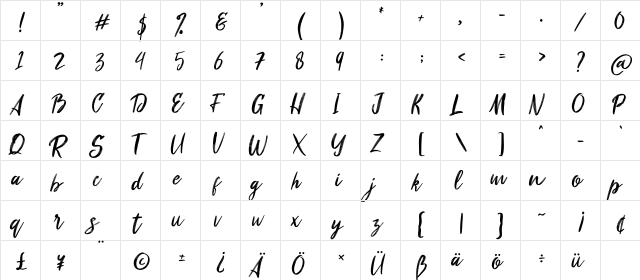
Scarletty Regular
| Foundry | Creatype Studio Co. |
| Designer | Rian Rahardi |
Design Context for Scarletty Typeface
Scarletty is a composed and adaptable typeface that performs quietly and consistently across a wide range of design contexts.